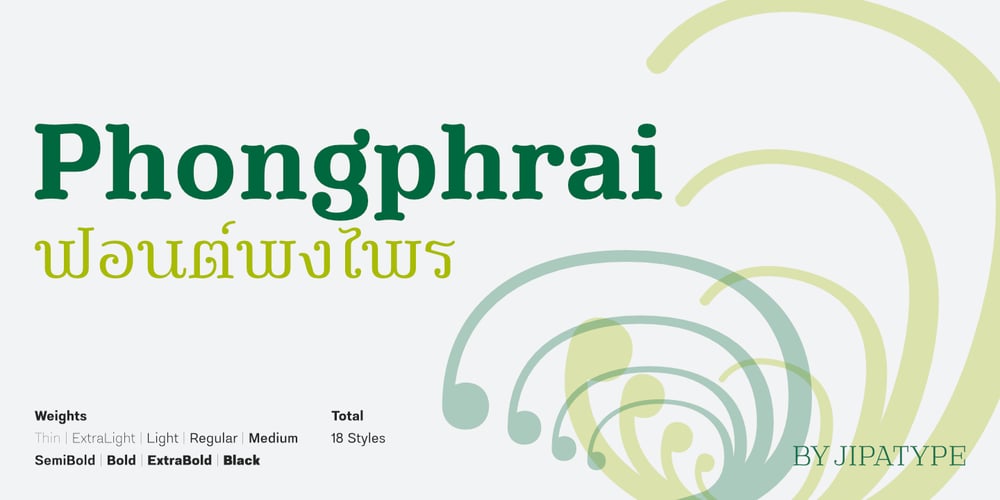
Phongphrai
Phongphrai font
Phongphrai Font Family was designed by Anupap Jaichumnan and published by Jipatype. Phongphrai contains 18 styles and family package options. Phongphrai is a versatile slab serif font with rounded features. Its name derives from the Thai word for “forest,” reflecting its organic and natural essence. This typeface supports both Thai and Latin-1 character sets, making it suitable for multilingual applications. Phongphrai offers a comprehensive range of 18 styles, spanning from Thin to Black weights.